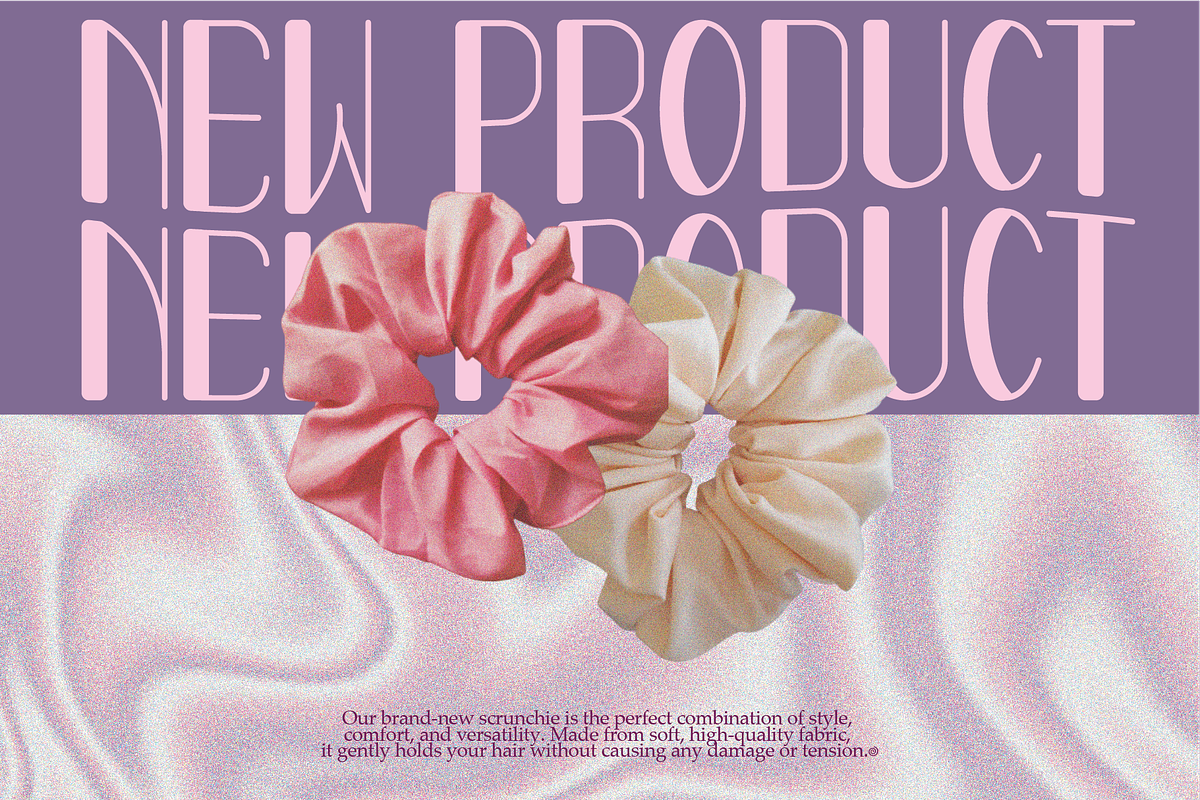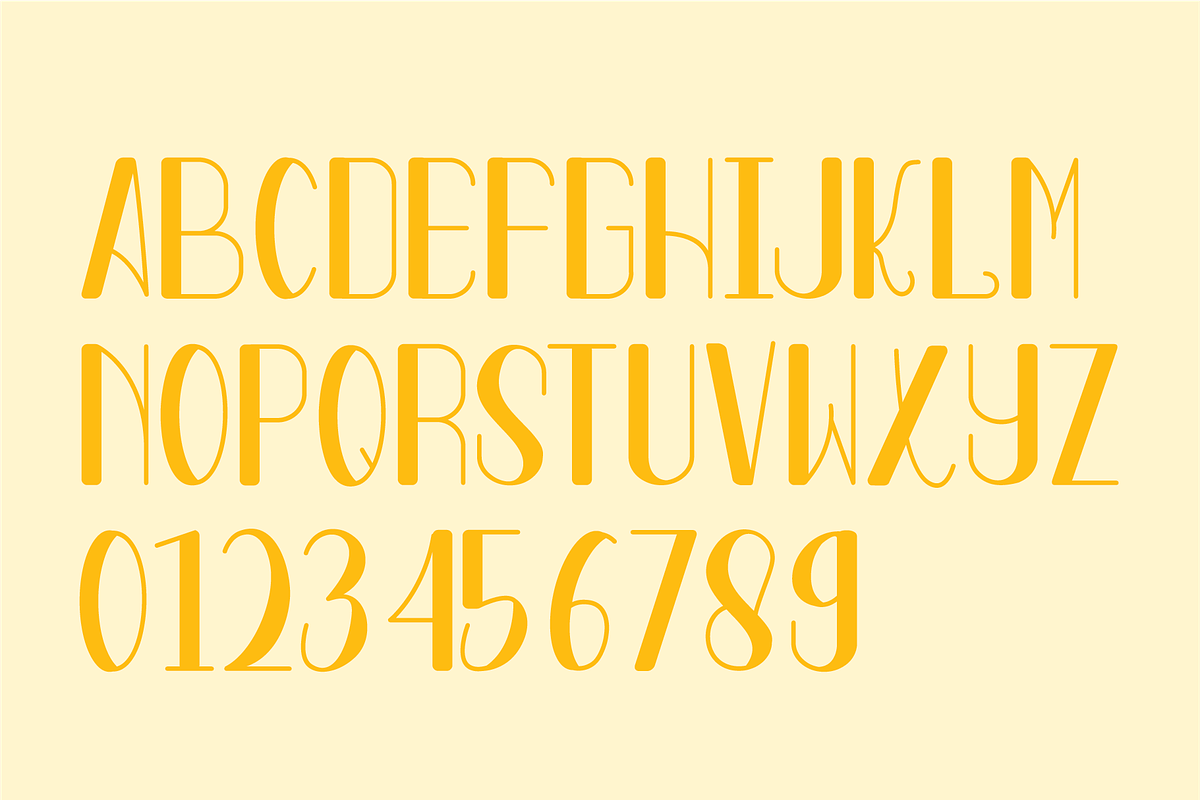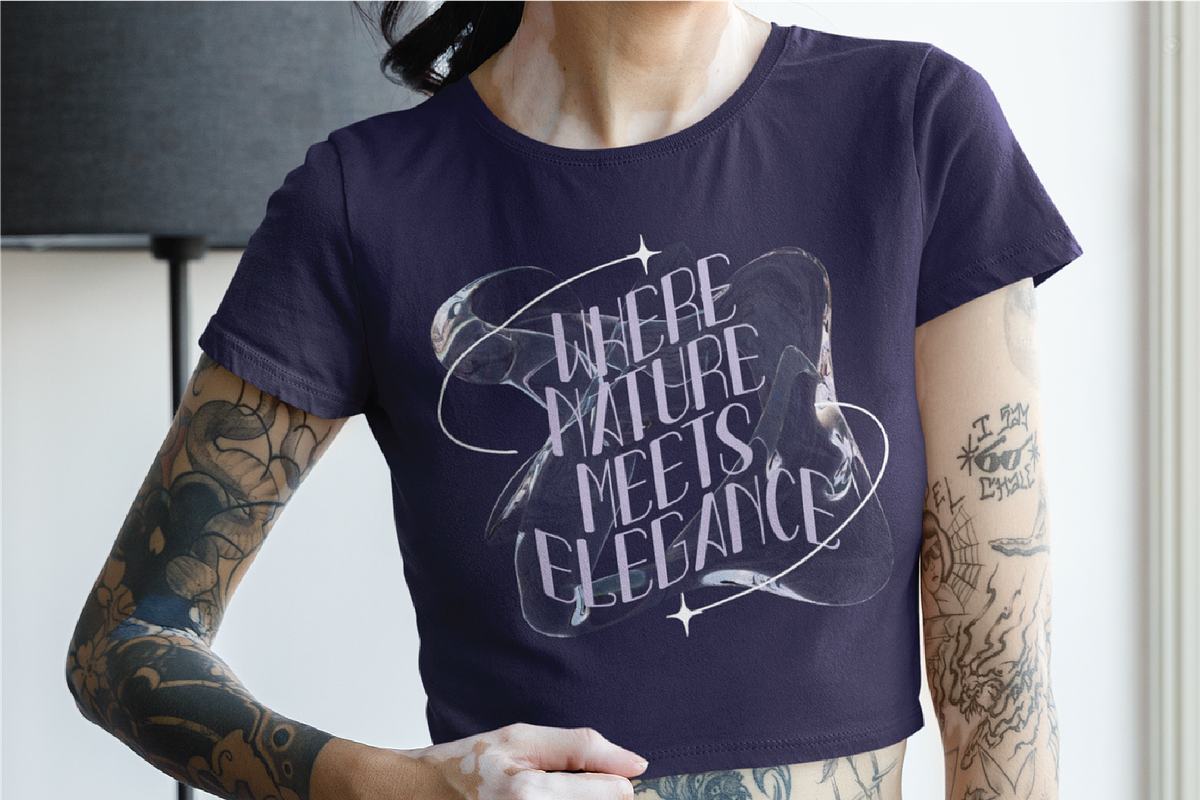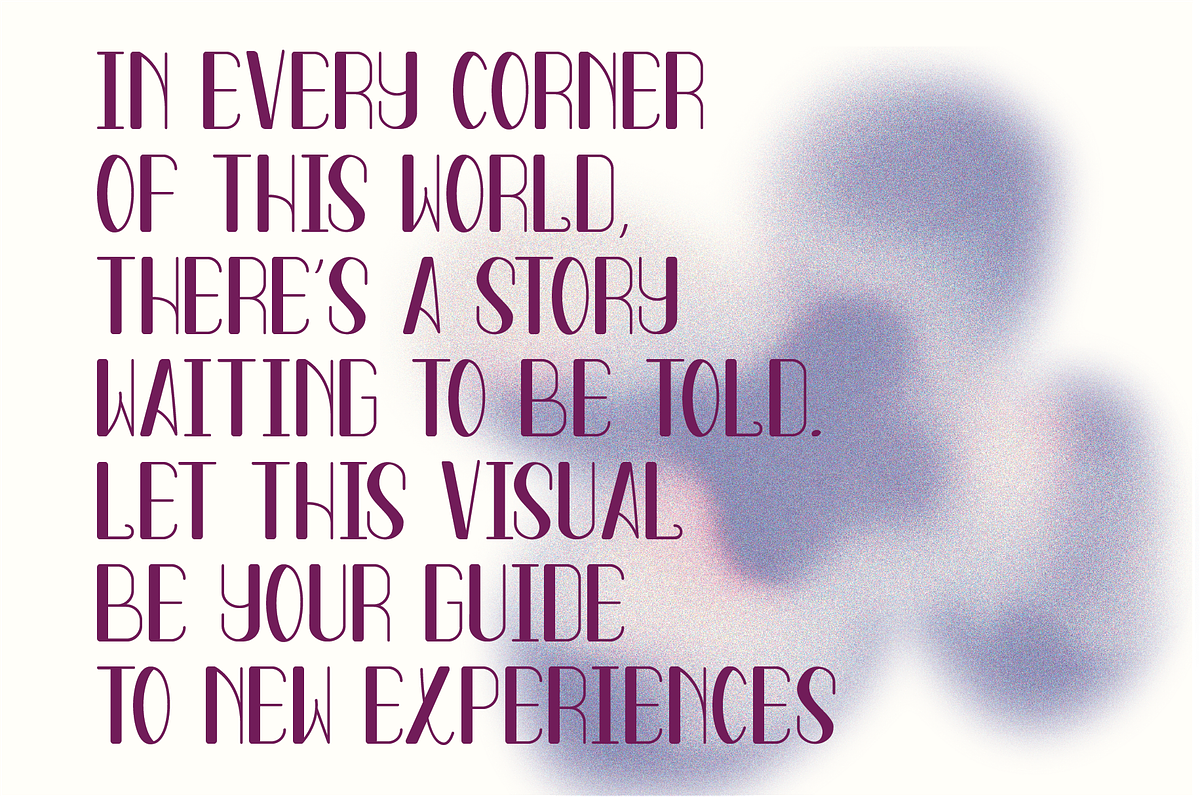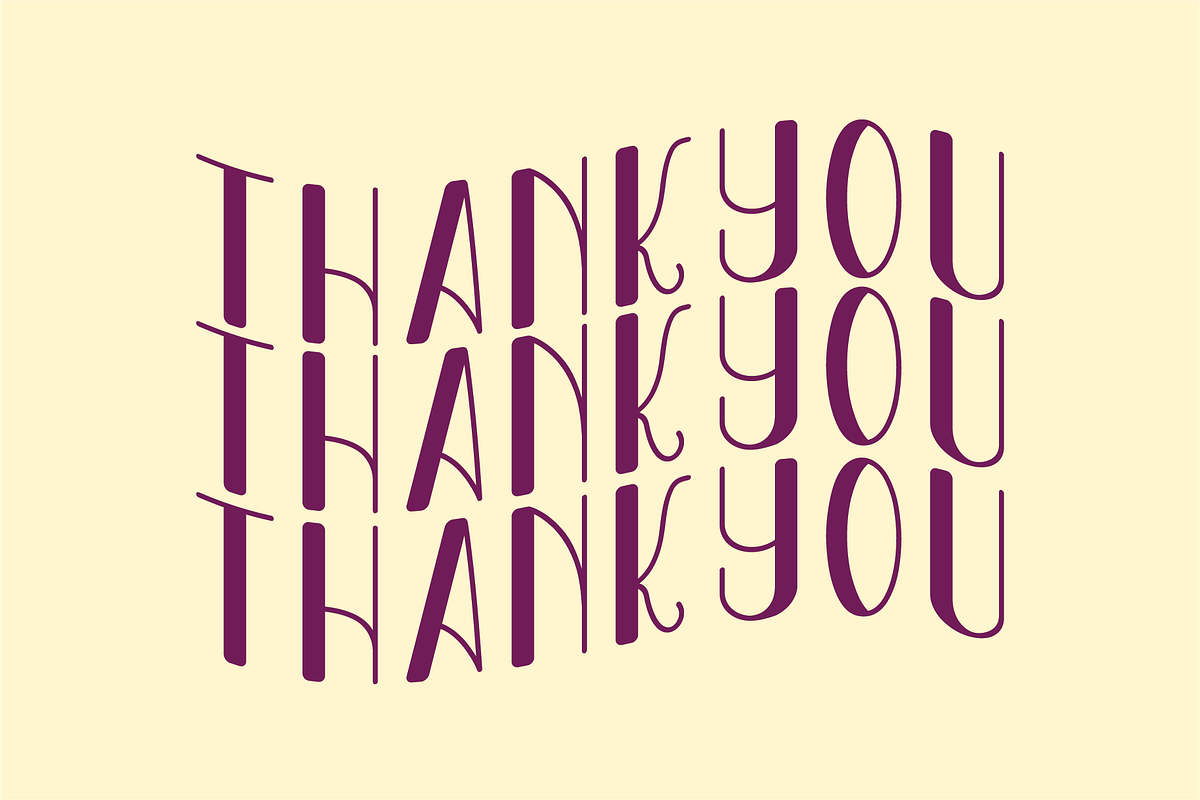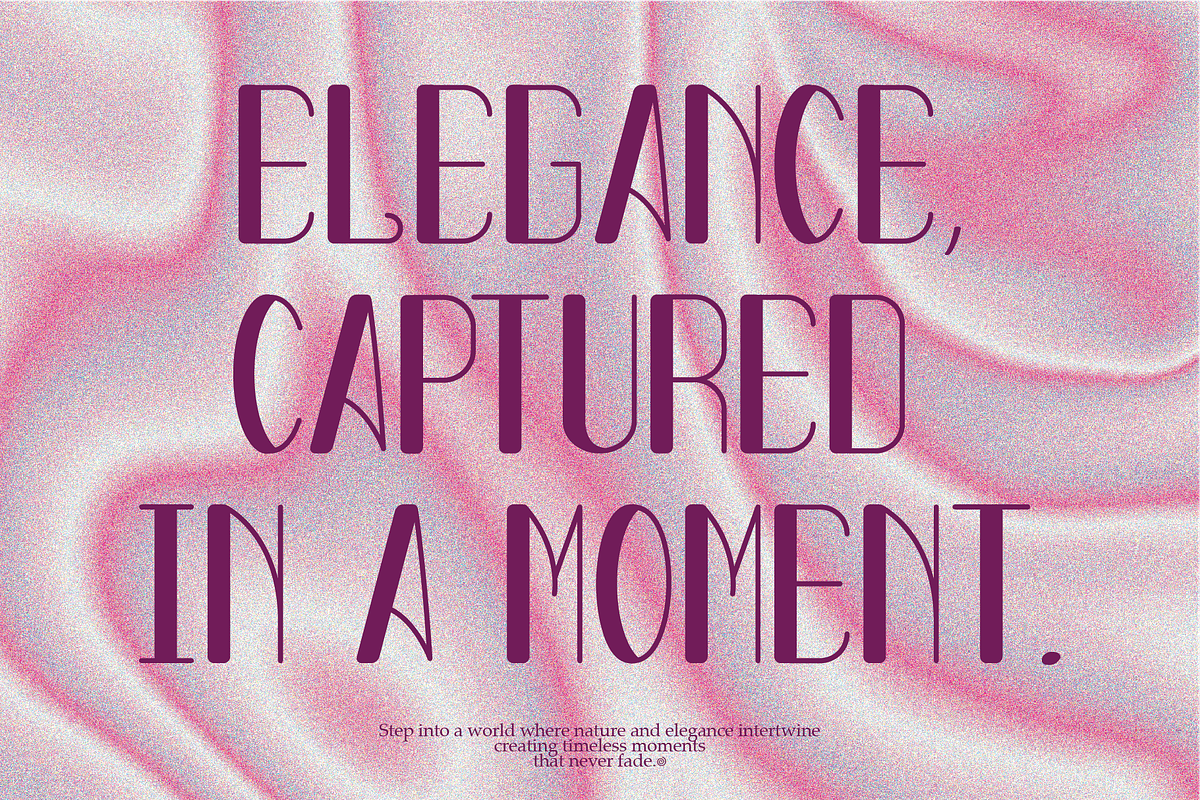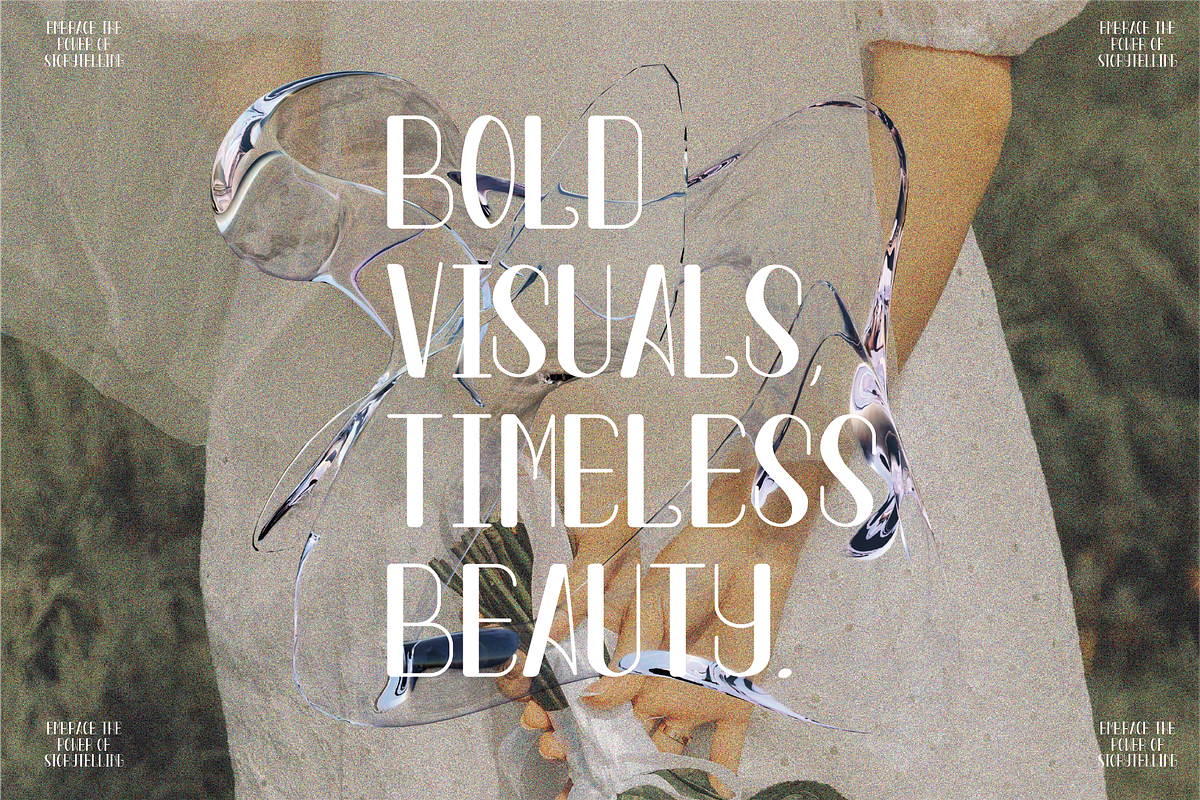
Nodtwist - A Playful Font
Nodtwist The font has a playful, lively, and dynamic design with bold, exaggerated curves and uneven spacing, giving it a unique, energetic vibe. The letters are tall and curved, creating a sense of movement and fun, with a whimsical character that stands out.
- Numbers, marks and symbols